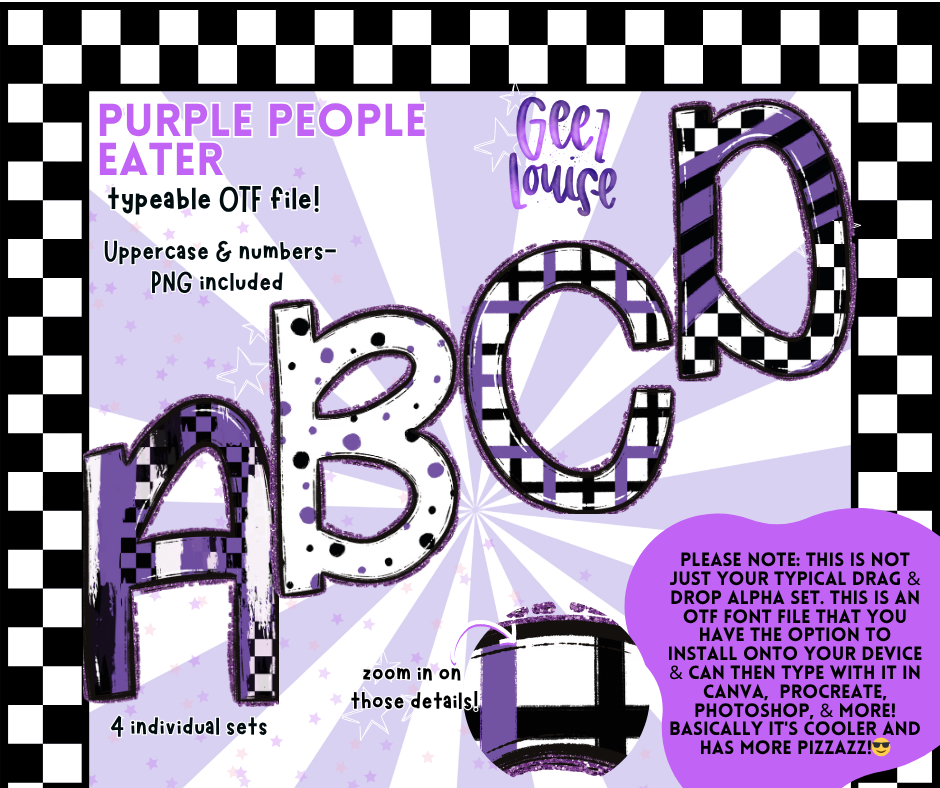
Purple People Eater – OTF Font Set with PNGs (4 Fonts Included)
Say hello to a Halloween fever dream in all the best shades of purple. 💜 The Purple People Eater font set includes 4 unique styles bundled into one beautifully bold OTF file—complete with coordinating PNGs.
🎃 4 individual font styles
🟣 Uppercase & numbers included
Whether you're going spooky cute or ghoulishly glam, this set has all the purple punch your projects crave!